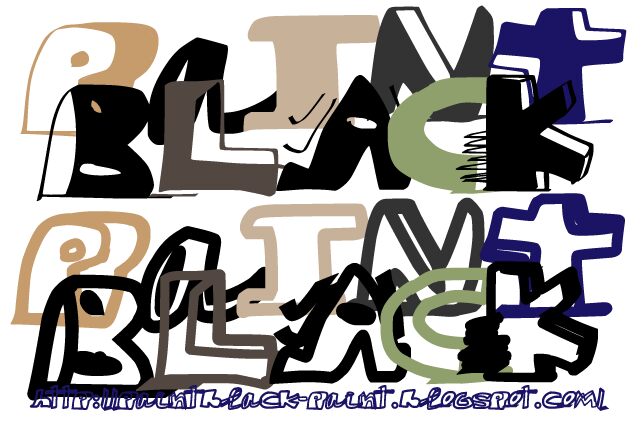
Paintblack by Paintblack is a free brush display font built from broad, ink-loaded strokes and loosely connected letterforms. Its uneven curves and abrupt joins feel quickly painted.
Streetwear labels and independent music brands could use it for logos, merchandise, and album covers with an immediate handmade impact. All of these uses draw on the same rough brushwork, which lets the lettering act as part of a painted graphic rather than a neutral caption.